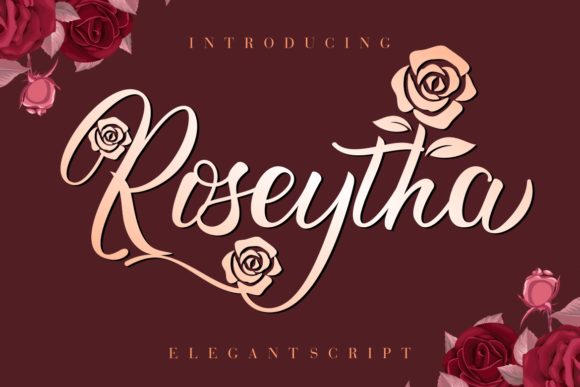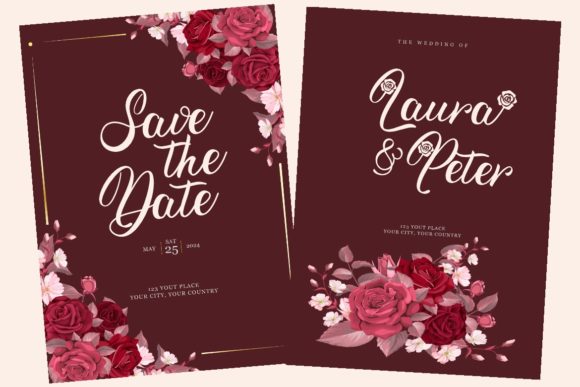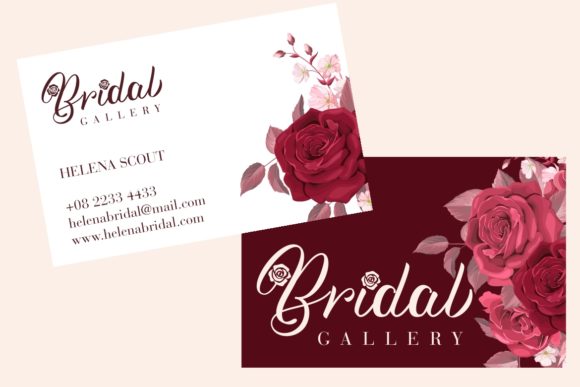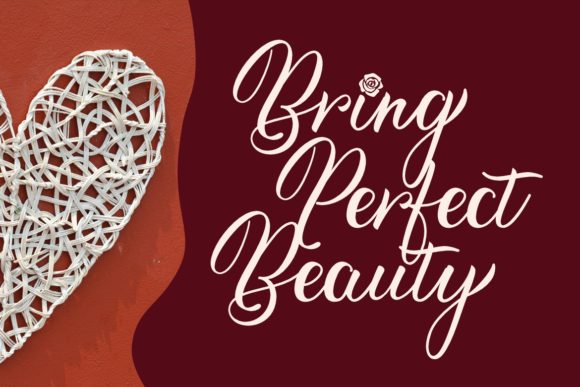
Roseytha Font: Elegant Calligraphy for Wedding & Logo Design
About the Roseytha Font
Let us introduce you to Roseytha Font, where timeless design meets modern craftsmanship. Roseytha is an elegant and flowing handwritten font. It is PUA encoded which means you can access all of the glyphs and swashes with ease! It maintains its classy calligraphic influences while feeling contemporary and fresh. Fall in love with this font and bring your projects to the highest levels!
Roseytha’s elegant, flowing forms are ideal for projects requiring a touch of sophisticated femininity. It excels in headlines, logos, short quotes, and invitations, adding a touch of handwritten charm without sacrificing readability. However, its calligraphic nature makes it unsuitable for body text or lengthy paragraphs, as its flowing forms can hinder legibility.
Consider pairing Roseytha with a clean sans-serif like Montserrat for a modern contrast, or a classic serif like Garamond for a more timeless feel. For a playful touch, a simple geometric sans-serif like Futura would add a nice balance.
Roseytha projects an air of refined elegance and subtle sophistication. It’s perfectly suited for brands focused on beauty, fashion, luxury goods, or stationery.
Roseytha Font Usage Examples
Roseytha Font Example